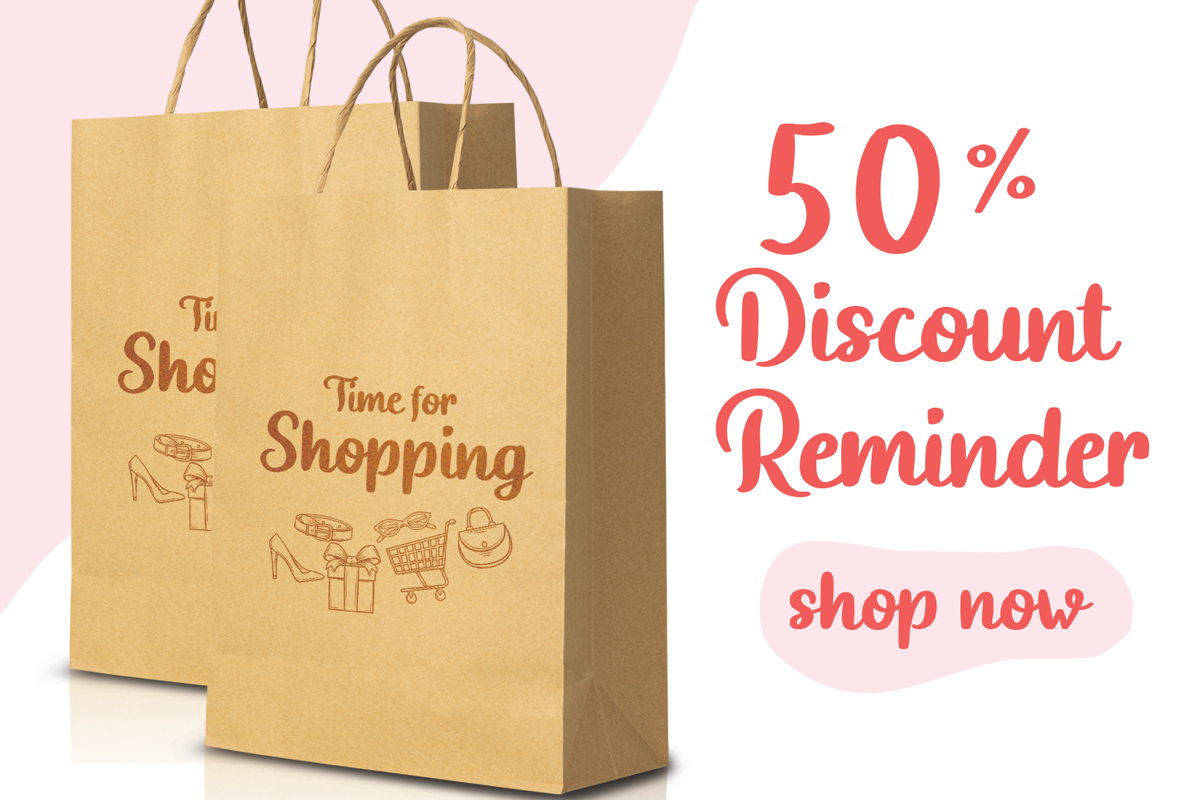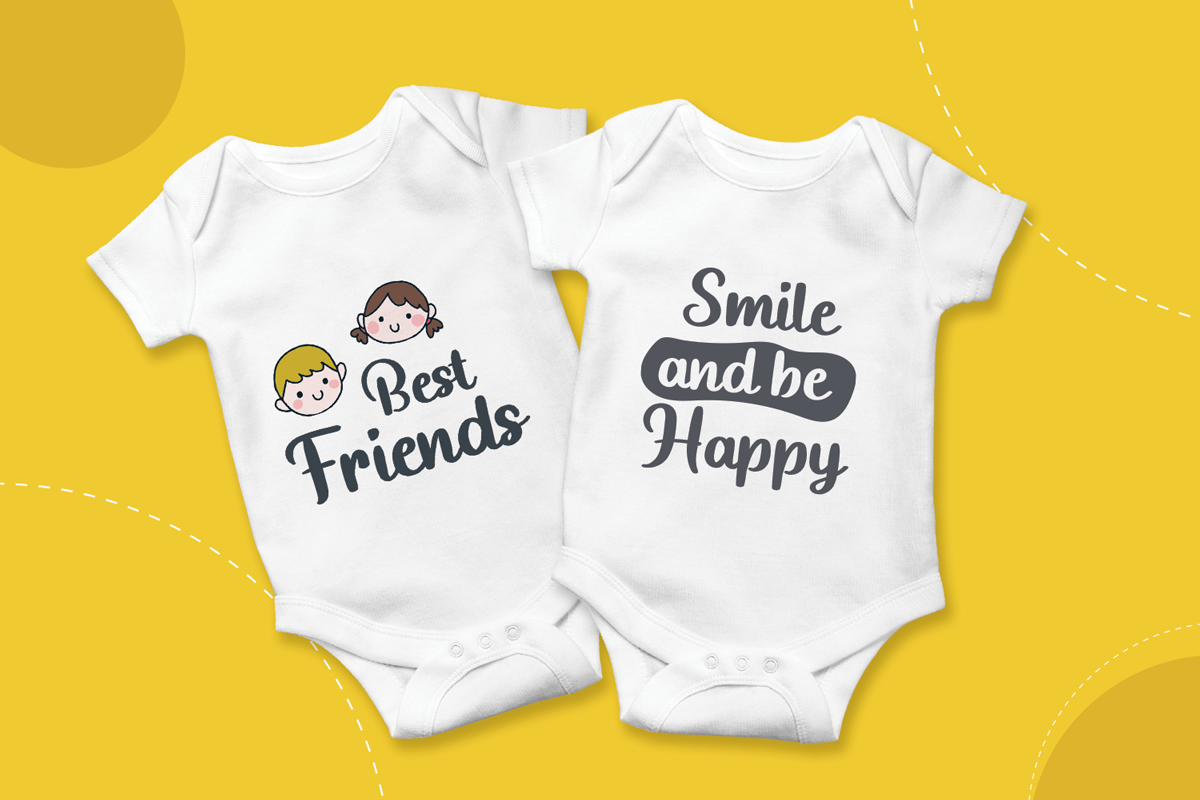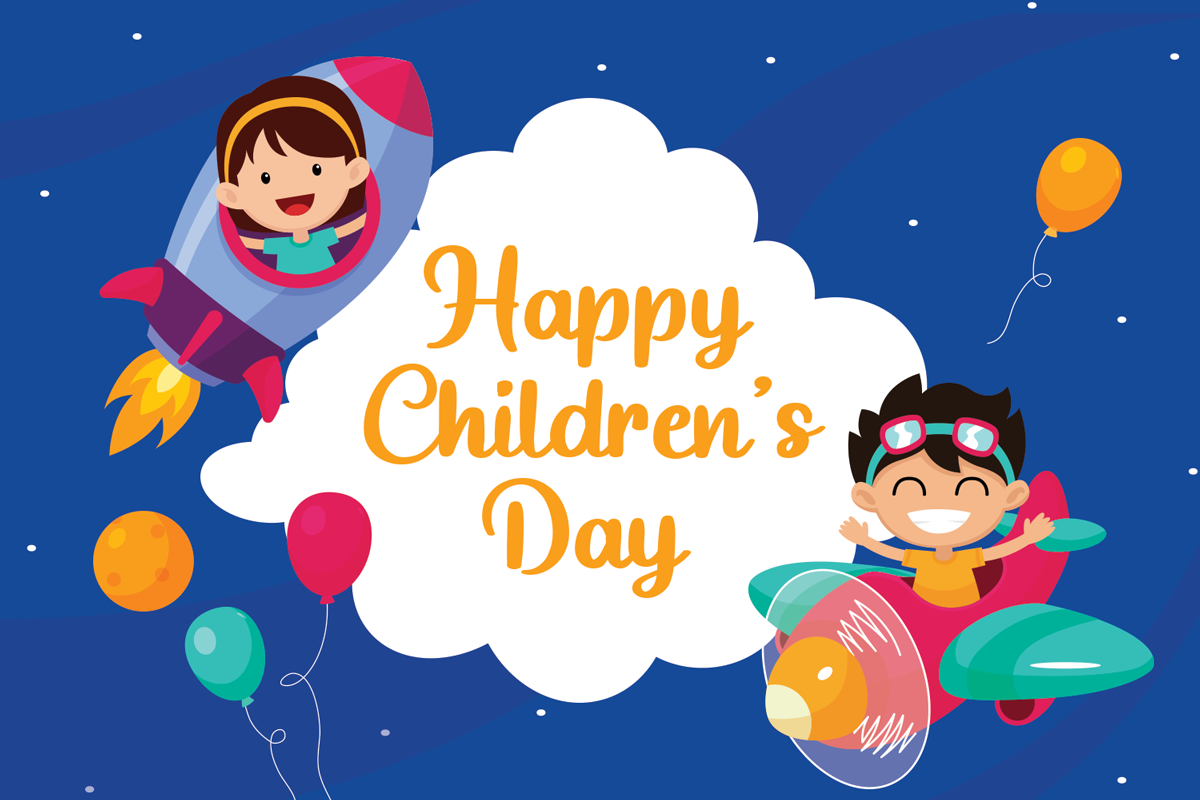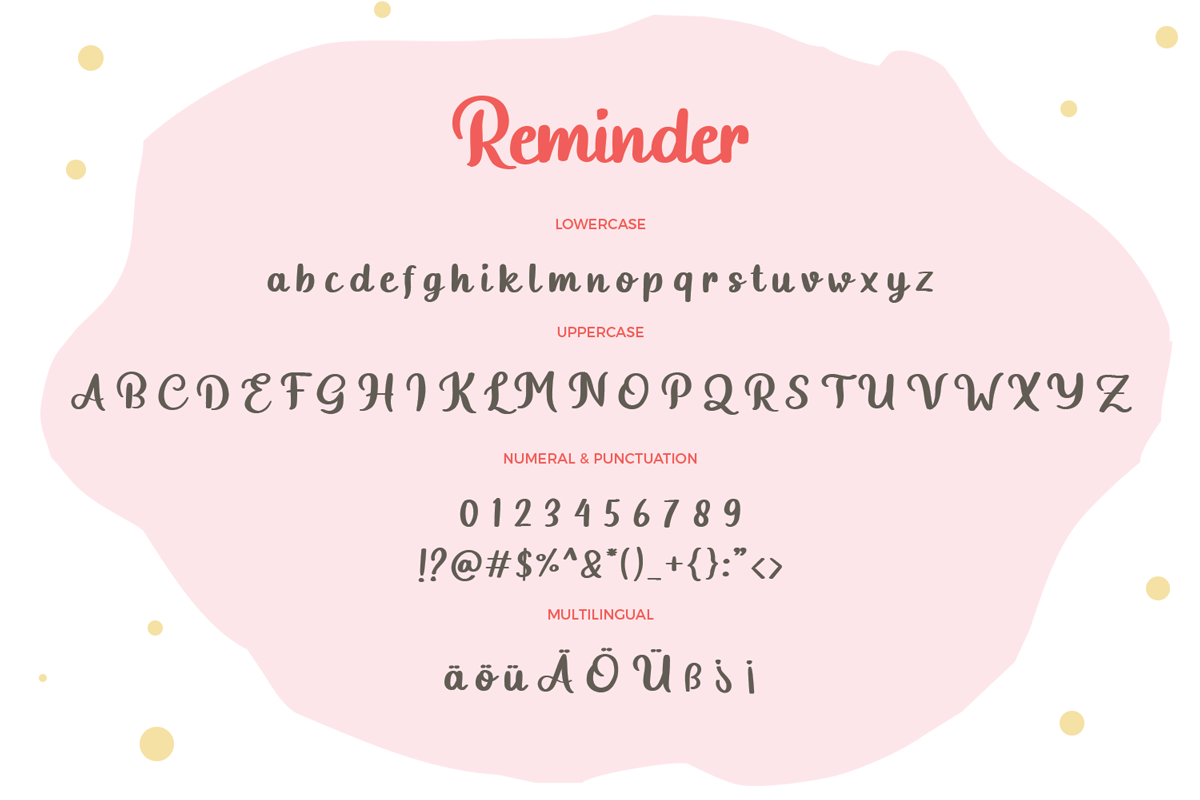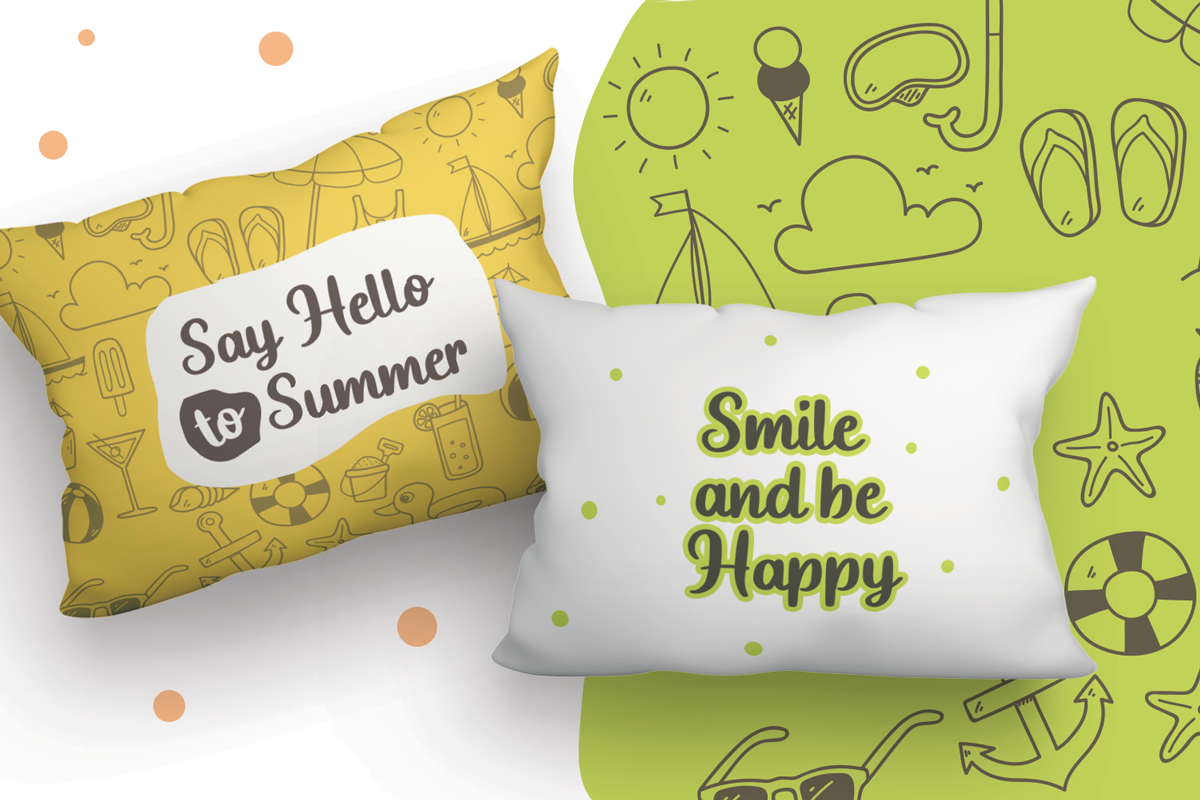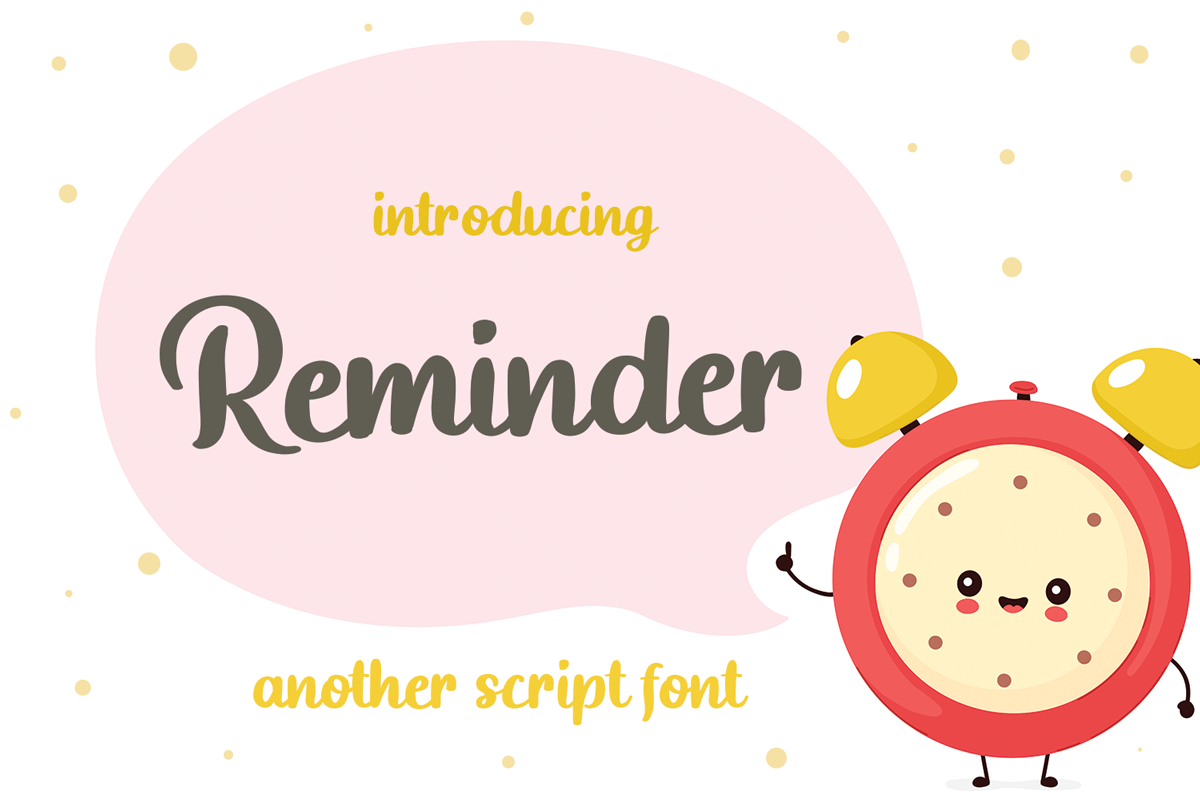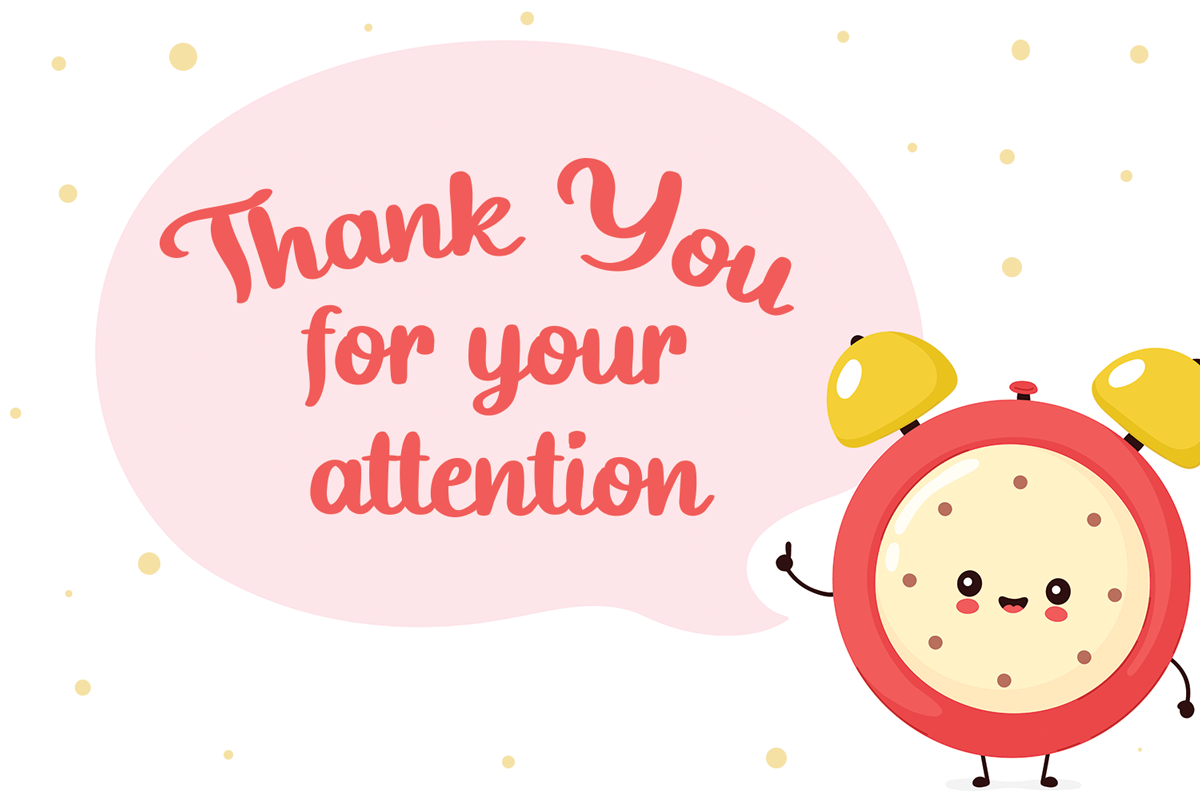
Reminder Fun Handwritten Font
Reminder is playful bold script font for display which is suitable to use for children and related design. This font also perfect for branding projects, logo, wedding designs, social media posts, advertisements, product packaging, product designs, label, photography, watermark, invitation, stationery and any projects that need bold handwriting style.